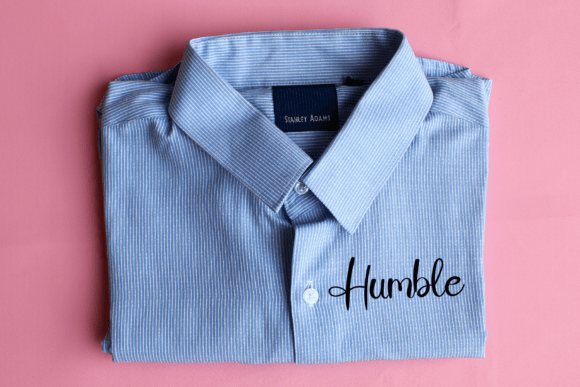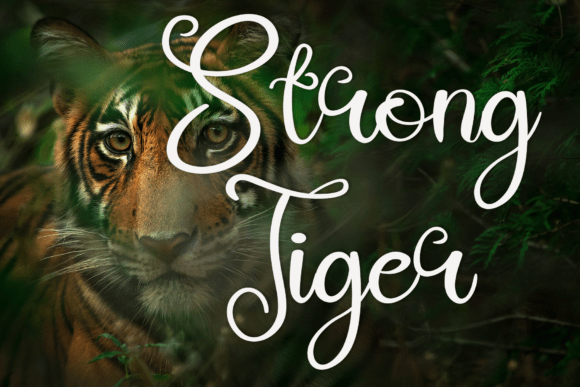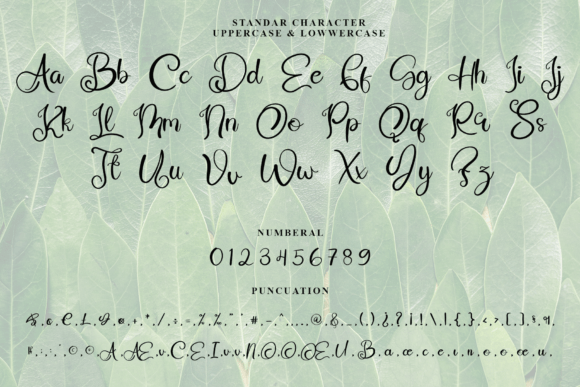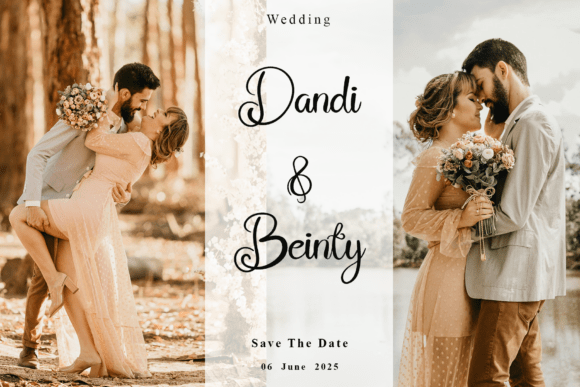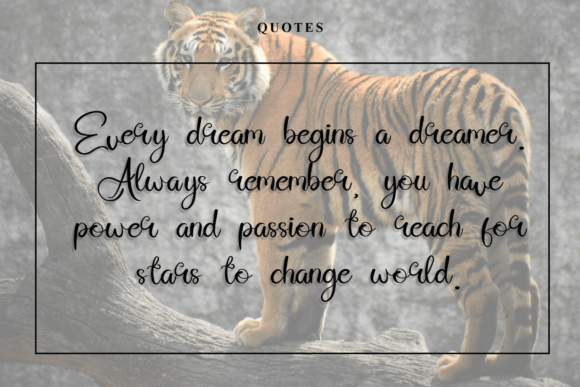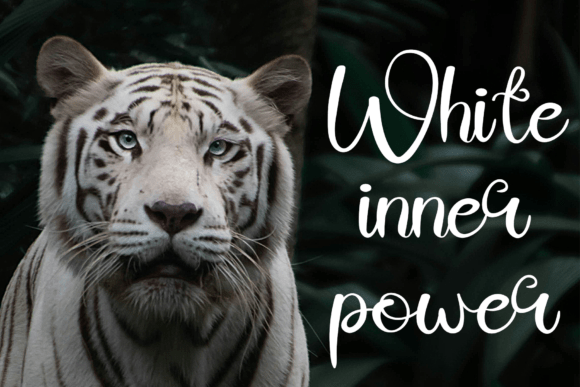
Getting Creative with the Wild Side
Do you ever find yourself staring at a blank page, feeling like a wild animal trapped in a cage of creativity? The blank page stares back, taunting you with its emptiness. But then, like a burst of fresh air, an idea strikes. You start to imagine the perfect font, one that’s as free-spirited as you are. That’s when you stumble upon the perfect companion for your artistic endeavors – the Animals Font.
This charming script font is more than just a pretty face; it’s a versatile tool that can bring your designs to life. With its thin lettering and simple style, the Animals Font is perfect for creating beautiful wedding invitations, stunning stationery art, and eye-catching social media posts. Its ravishing style is sure to captivate your audience and leave a lasting impression.
Animals Font Key Features
- Unique Characteristics: The font features a playful, handwritten style with irregular strokes and subtle variations in letterforms, giving it a natural and organic feel.
Designer Review: Animals Font
Overall, I have mixed feelings about the Animals Font. While it has some interesting features, it also has its limitations.
- ✨ Unique and playful design: The Animals Font is certainly eye-catching and can add a fun touch to any project.
- ✨ Good for creative projects: This font is perfect for projects that require a whimsical or humorous tone.
- ✨ Supports various languages: The font supports multiple languages, making it a good choice for international projects.
- ⚠️ Limited legibility: The font’s playful design can sometimes make it difficult to read, especially in smaller sizes.
- ⚠️ Not suitable for formal projects: The Animals Font is too casual and playful for formal projects or documents.
- ⚠️ Limited font weights: The font only comes in a few weights, which can limit its versatility.
The Animals Font is a fun and playful addition to any design project. While it has some limitations, it’s perfect for creative projects that require a lighthearted tone. However, it’s not the best choice for formal or professional projects.
Animals Font Practical Application Guide
Use the Animals Font to create eye-catching designs, such as:
- Animal-themed logos and branding
- Children’s educational materials
- Social media posts and graphics
Experiment with different font sizes, colors, and styles to create a unique and engaging design.